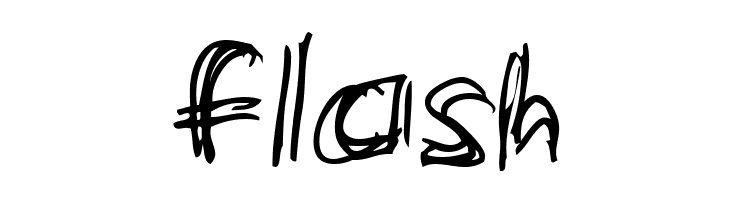
Electro Static Rain-Light Italic Font
- Font: Electro Static Rain-Light Italic
A quirky, hand-drawn font with irregular, jagged edges and playful character design.